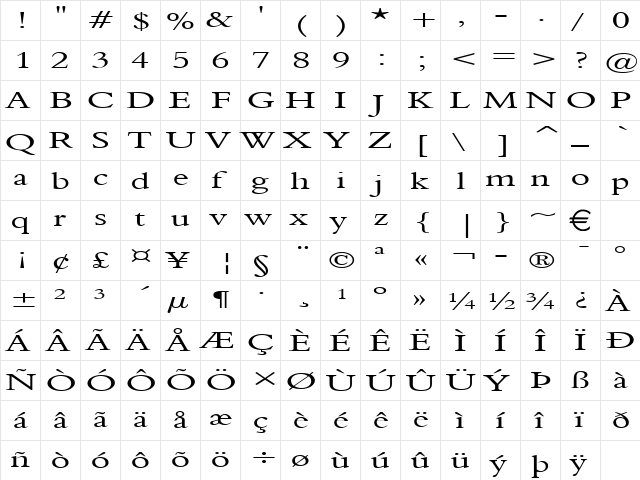
NalineExtended Normal Font Preview
NalineExtended Normal
Design Context for NalineExtended Typeface
NalineExtended takes a measured approach to typography — its balanced proportions and neutral character make it a reliable workhorse for both digital and print work.